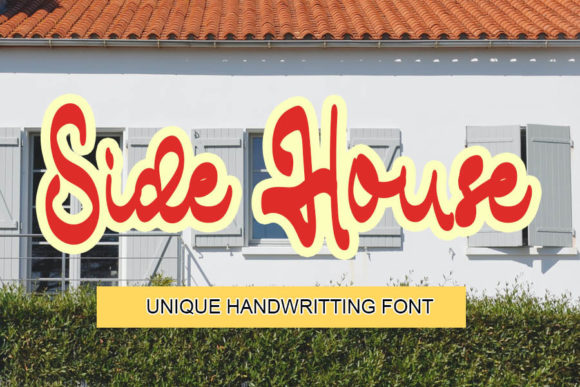
Step into the whimsical world of Side House Font, where letters dance and stories come alive. This charming script family is the brainchild of shiddiq.art, a creative mind who poured their heart into crafting each stroke and curve. Side House Font is more than just a collection of characters; it's an invitation to express your individuality, share your tales, and leave an unforgettable mark on the world.
Crafted with playful elegance, Side House Font is a symphony of loops, twirls, and flourishes. Its delightful personality shines through in every word, adding a touch of warmth and charm to your designs. This font is a perfect fit for logos, branding, posters, and handcrafted projects, where creativity thrives, and imaginations soar.
With Side House Font, you'll have the power to transform ordinary words into captivating expressions. Whether you're a seasoned designer, a budding entrepreneur, or simply someone who loves to create, this font will ignite your imagination and unlock your creative potential. Join the Side House Font family today and let your ideas flourish in a world of wonder and delight.